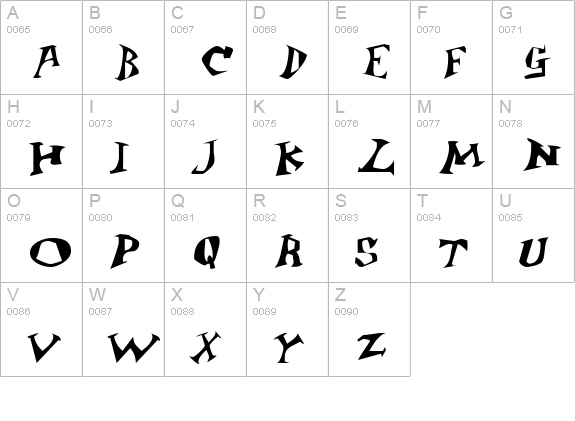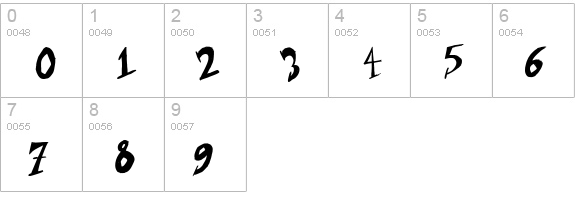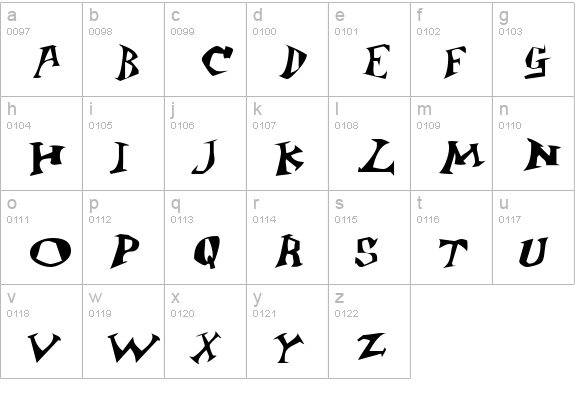
Introducing the delightful Jangly Bounce font, a vibrant and energetic typeface that will bring a playful twist to any project. With its whimsical letterforms and bouncy baseline, Jangly Bounce captures the essence of joyful spontaneity, making it perfect for designs that aim to exude a sense of fun and excitement. Every letter in Jangly Bounce is meticulously crafted to radiate a sense of movement and dynamism. The playful curves and exaggerated strokes give this font a distinctive look that is both eye-catching and full of personality. Whether you're designing a children's book, a poster for a lively event, or simply want to inject some liveliness into your brand, Jangly Bounce is the go-to font that will never fail to make a statement. But what makes Jangly Bounce even more incredible is that it is available for free! Yes, you read that right. This incredible font can be yours without spending a dime. Simply head over to FontsMarket.com and download Jangly Bounce today. With just a few clicks, you'll have access to this delightful font that will transform your designs into captivating works of art. So, why wait? Let your creativity soar with Jangly Bounce. Get your hands on this free font and bring a dose of playful charm to your next project. Download it now at FontsMarket.com and unlock a world of endless possibilities.